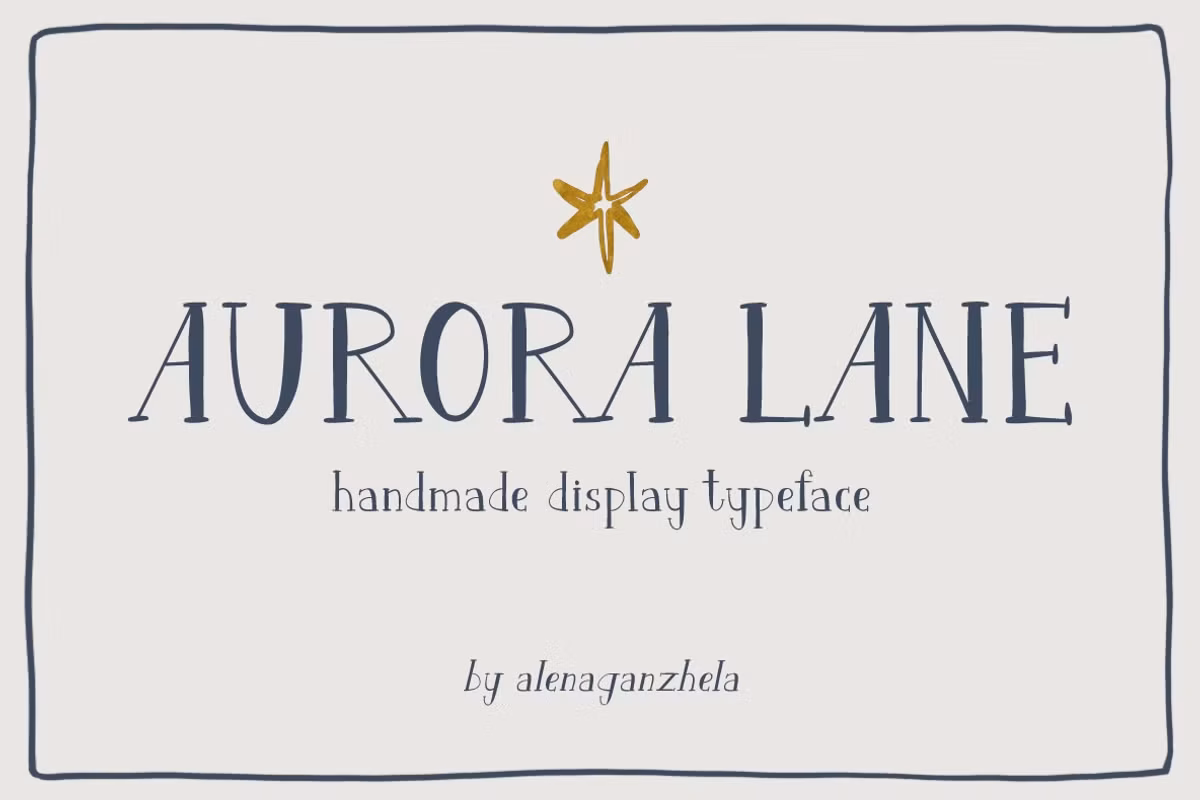
AURORA LANE Display Typeface Free Download is a bold and dynamic typeface designed to make a lasting impression. With its strong, modern design and elegant letterforms, this font is perfect for logos, headlines, posters, branding, and any project that demands attention. Its striking aesthetic ensures your typography will stand out in both print and digital formats.
Whether you're designing for a modern brand, creating eye-catching advertising, or working on bold editorial layouts, AURORA LANE brings clarity, strength, and sophistication to your typography. It’s the perfect choice for designers who seek a modern, impactful display typeface.